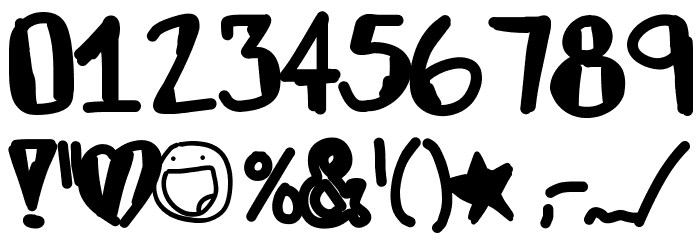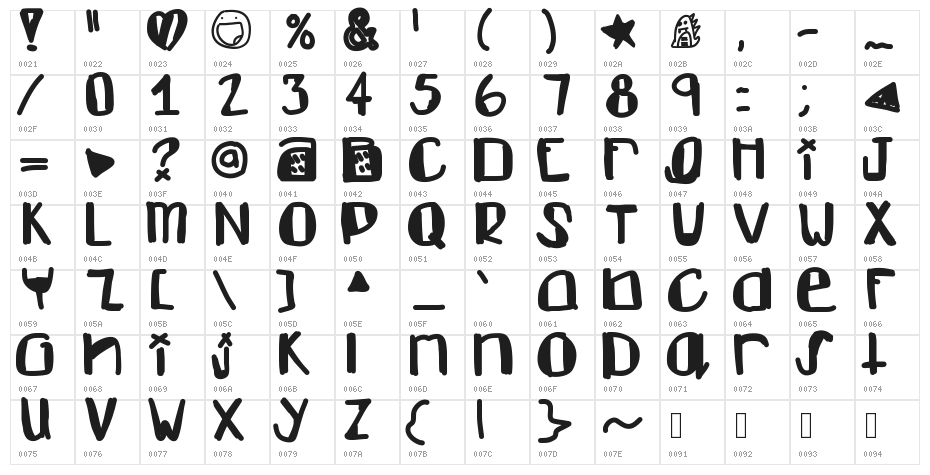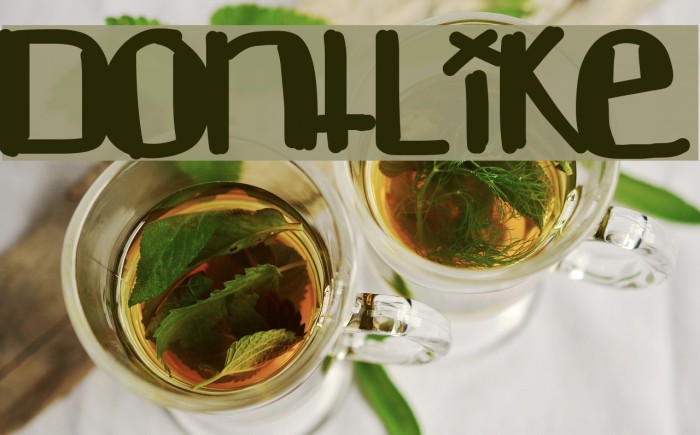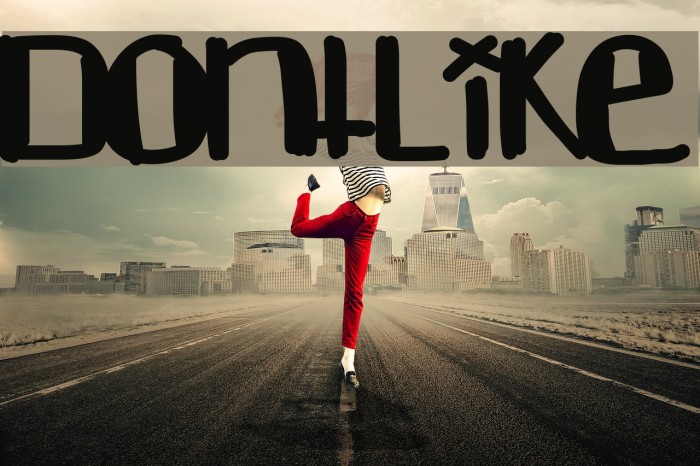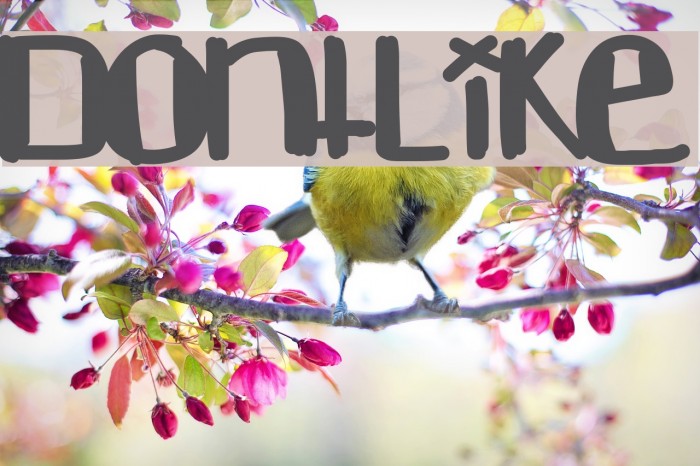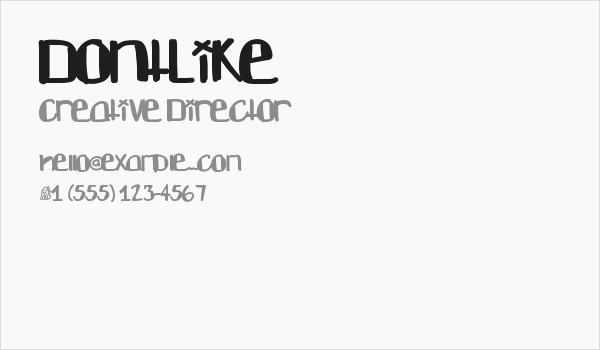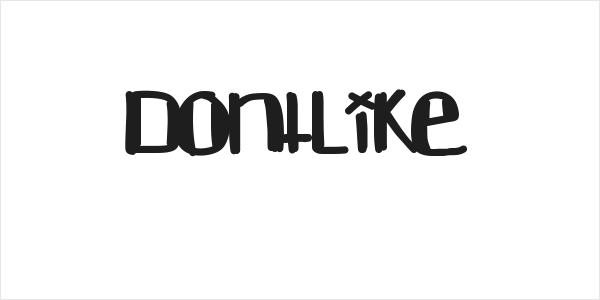
DontLike Font
DontLike Description
This font features a playful and bold handwritten style, characterized by its thick strokes and irregular shapes. The letters have a casual, almost doodle-like appearance, with some characters exhibiting unique and quirky elements, such as the crossbars and loops. The numbers and special characters maintain the same whimsical style, adding to the overall charm. This font is highly expressive, making it ideal for creative and informal projects where a sense of fun and individuality is desired.
| Overall Style | Playful, Creative |
| Proposed Projects | Perfect for children's books, playful branding, greeting cards, and creative posters. |